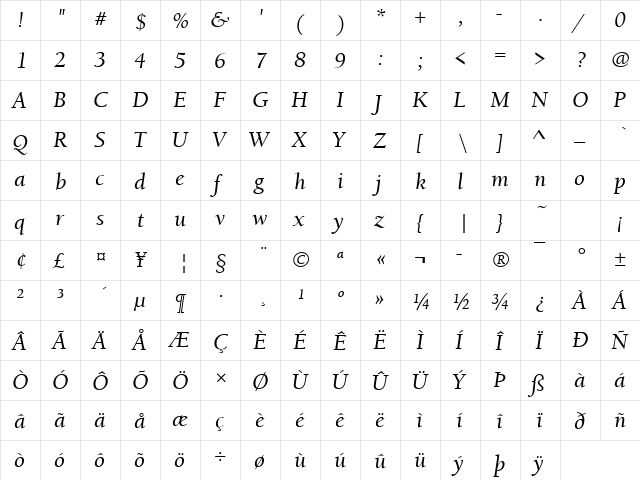
BerkeleyOldStyItcTMed Italic
Design Context for BerkeleyOldStyItcTMed Typeface
BerkeleyOldStyItcTMed takes a measured approach to typography — its balanced proportions and neutral character make it a reliable workhorse for both digital and print work. The slanted form adds forward momentum and visual energy.